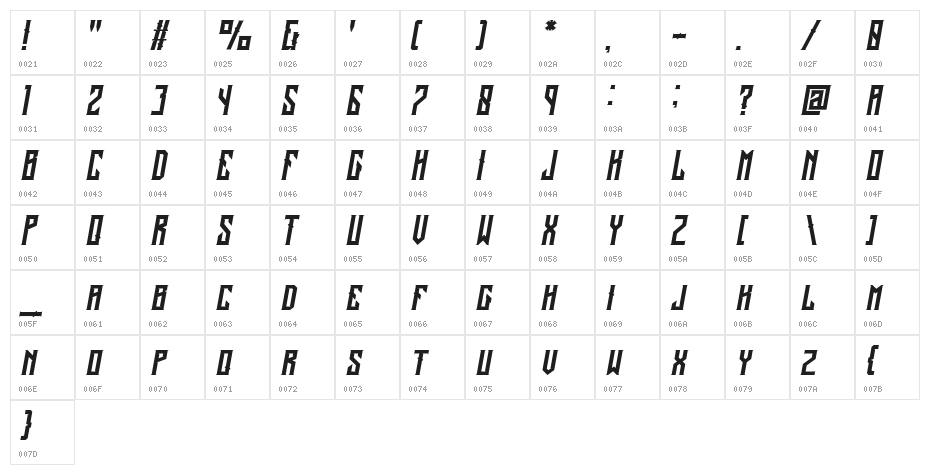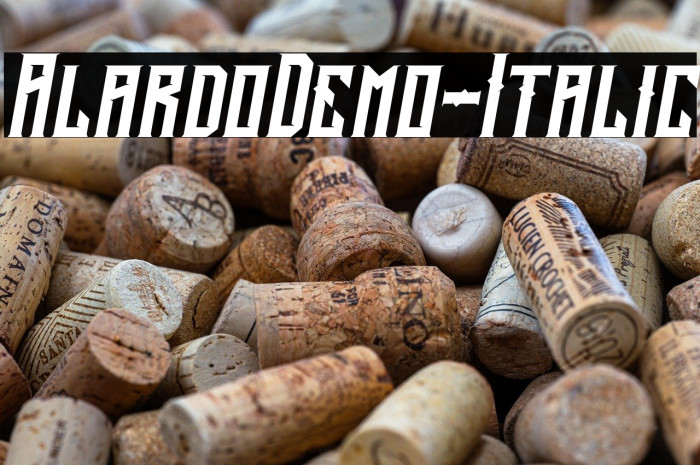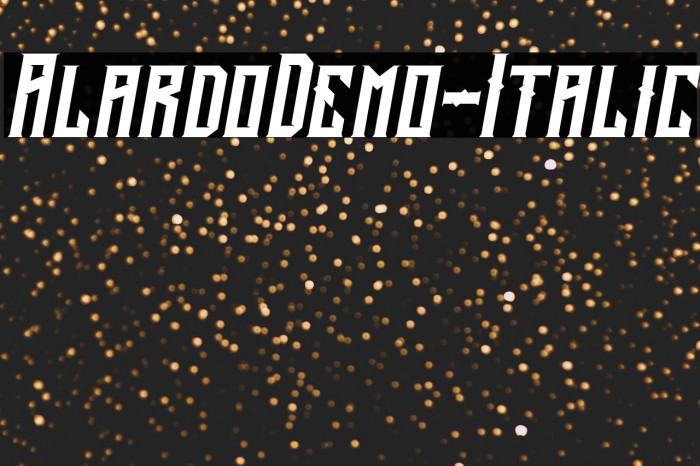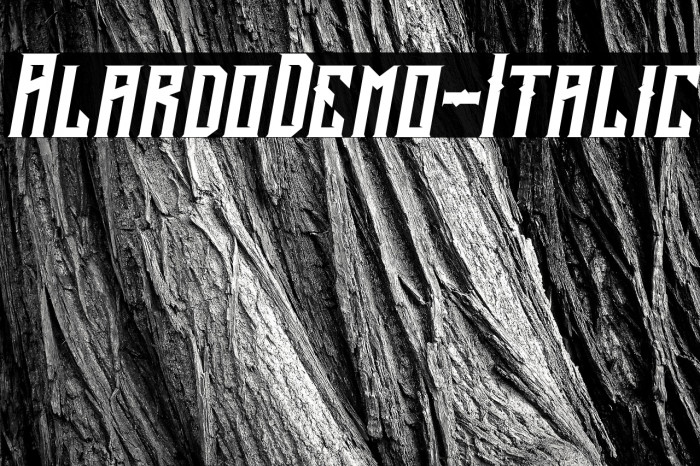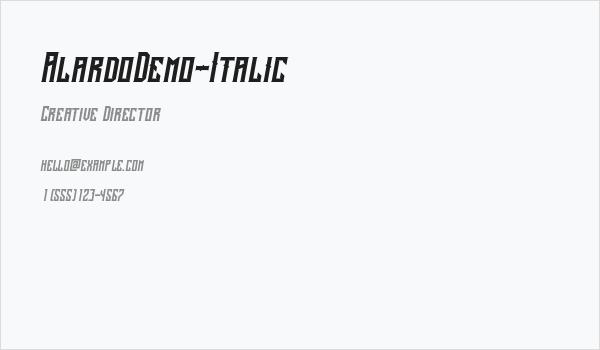
AlardoDemo-Italic Font
AlardoDemo-Italic Description
This font features a bold, angular design with a distinct italic slant, giving it a dynamic and energetic appearance. The characters are sharply defined with a geometric style, incorporating pointed edges and unique cutouts that add a modern, edgy feel. The uppercase and lowercase letters maintain a consistent style, with the uppercase being particularly striking due to its height and angularity. Numbers and special characters follow the same design principles, ensuring uniformity across all glyphs. This font's strong visual impact makes it suitable for attention-grabbing headlines and titles.
Proposed ProjectsIdeal for branding, posters, and any design projects needing a bold, modern touch.